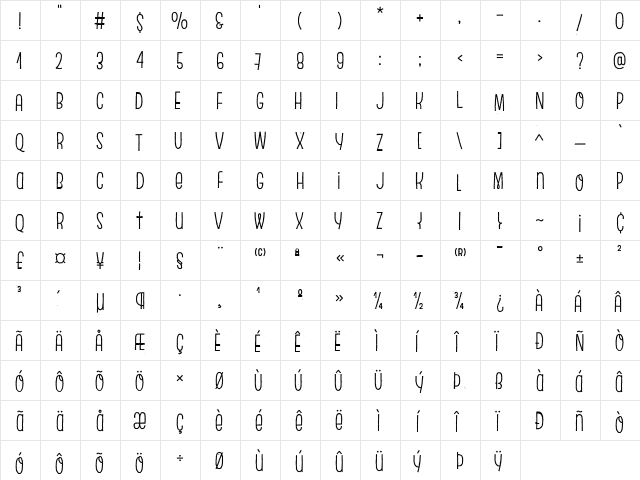
Escalope Crust Two
Crust Two · Julia Martinez Diana, Antipixel Julia Martinez Diana, Antipixel ·
Design Context for Escalope Typeface
Escalope offers clean, dependable letterforms without strong stylistic allegiance, making it a practical choice for designers who need flexibility.
Pro Tip: Pair Escalope with a font of contrasting weight or personality to build a more expressive typographic hierarchy.